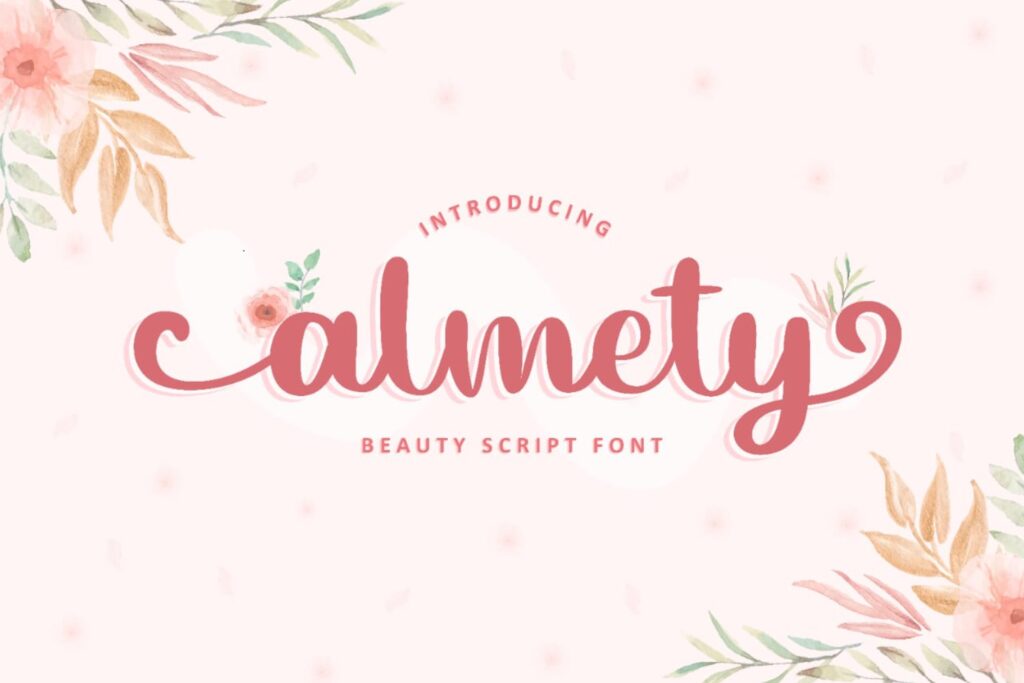
Almety Font
Almety is a relaxed, modern and adaptable script font. It is the best choice for creating eye catching logos, branding and quotes. Every letter has a unique and beautiful touch, which will make your design come alive! This font includes TTF, OTF and also multilingual support.
Almety Calligraphy Script Font